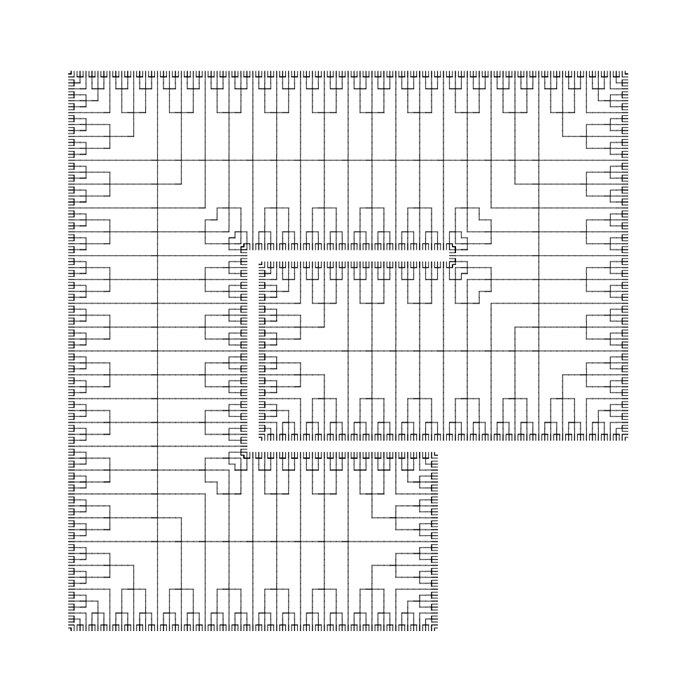
This project was inspired by the outline view of the original Fractal Font in Glyphs App. It is a simplified version with four iterations of the fractal pattern instead of five. The glyphs are still huge. Every measure of this font is so extreme, that the preview window could not display it properly. With the pixel view selected only very faint letters appear. (For higher magnification please, hold down the Shift key and press the PIXEL button a few times.)
To achieve maximum thinness I've created custom bricks for lines 1/32 of a full brick. There are tiny imperfections in the design not visible at normal magnification. The imperfections you may notice are rendering artifacts (of Fontstruct preview), not part of the design (e.g. some lines, and sections appear thinner or thicker).
Recommended use: short snippets of text, large-size prints, logos.